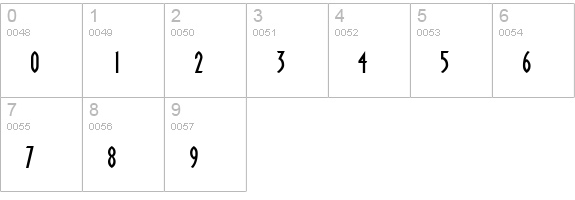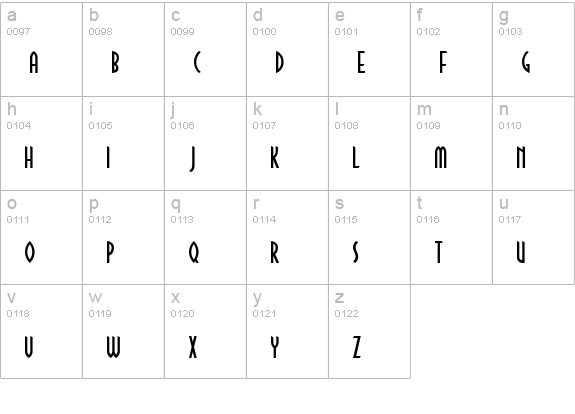
CinemaDemiBold Font Details
CinemaDemiBold font is a versatile and stylish typeface that exudes elegance and sophistication. With its bold and eye-catching design, this font is perfect for creating attention-grabbing headlines, titles, and logos. The CinemaDemiBold font strikes the perfect balance between classic and modern, making it suitable for a wide range of design projects. What's even better is that CinemaDemiBold font is available for free download at FontsMarket.com. Now you can add a touch of class to your designs without breaking the bank. Don't miss out on this opportunity to elevate your projects with the CinemaDemiBold font – download it now and start creating stunning visuals today!